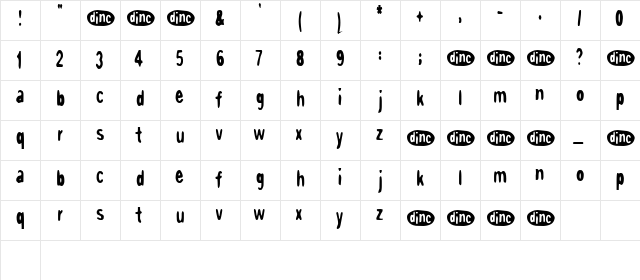
Automat Regular
Design Context for Automat Typeface
Automat takes a measured approach to typography — its balanced proportions and neutral character make it a reliable workhorse for both digital and print work.
Pro Tip: Use Automat in both headline and body roles to test its range before committing to a single application.